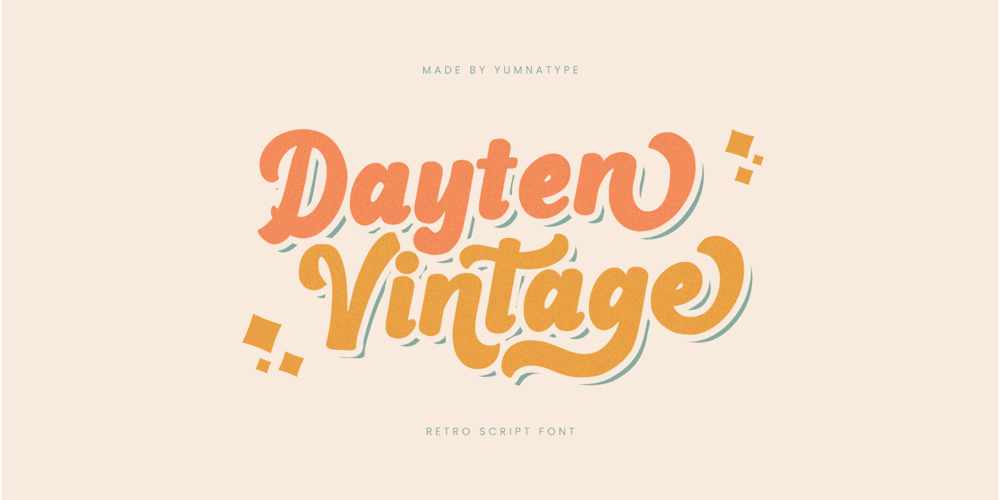
Dayten Vintage Font Family was designed by Donis Miftahudin and published by Yumna Type. Dayten Vintage contains 1 styles and family package options. Dayten Vintage is a charming script font that transports you back in time with its retro-inspired design. Crafted with a thick weight and rounded shapes, this font exudes a sense of nostalgia and warmth.With its thick weight and rounded shapes, Dayten Vintage captures the essence of retro typography, evoking memories of old-fashioned signage and advertising. Each letter is meticulously crafted with smooth curves and flowing lines, creating a sense of fluidity and charm that is characteristic of vintage script fonts. In addition, enjoy the features here.Features: Ligatures Stylistic Sets Multilingual Supports PUA Encoded Numerals and Punctuations Dayten Vintage fits in headlines, logos, posters, flyers, branding materials, greeting cards, print media, editorial layouts, and many more designs. Find out more ways to use this font by taking a look at the font preview.Thanks for purchasing our fonts. Hopefully, you have a great time using our font. Feel free to contact us anytime for further information or when you have trouble with the font. Thanks a lot and happy designing.